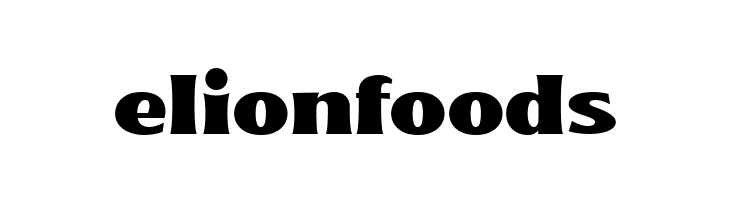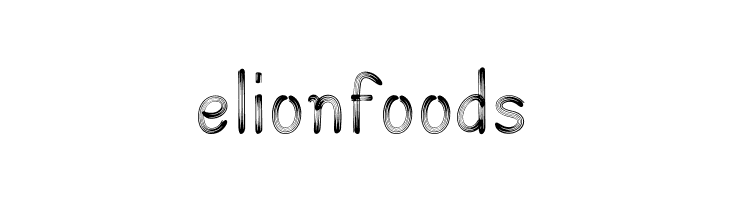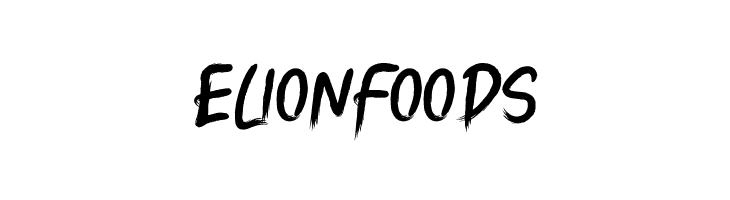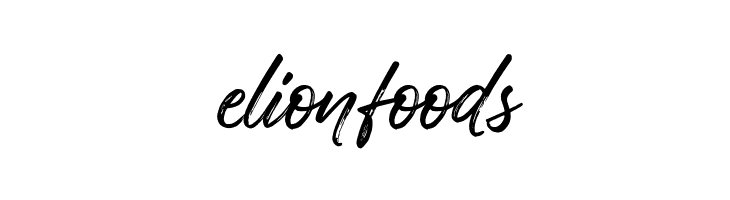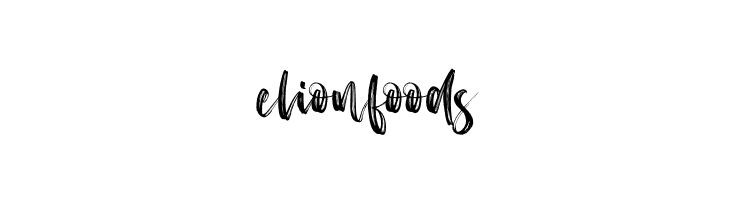
A bold, dramatic font with strong strokes and a slightly condensed style.
A bold, dramatic font with strong strokes and a touch of elegance.
A playful, hand-drawn font with overlapping lines and a sketch-like appearance.
A bold, brush-style font with dynamic strokes and a handwritten feel.
A modern, geometric outline font with a futuristic and technical style.
A dynamic, expressive script font with bold, brush-like strokes.
A fluid, cursive script font with a handwritten style.
A fluid and elegant handwritten script font.
A bold, expressive handwritten font with dynamic strokes.
A tall, narrow font with a striking, elegant design and consistent stroke width.